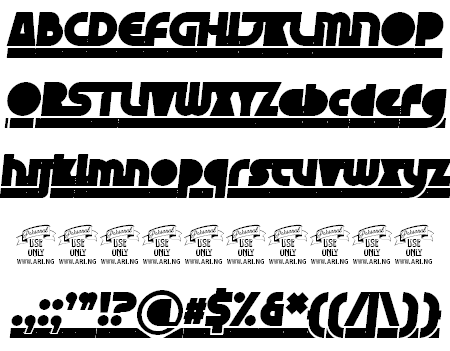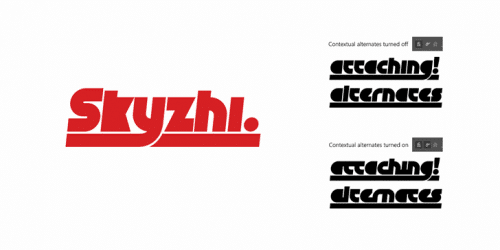
Skyzhi is a high quality Disney font that is designed by Måns Grebäck. It is an action-filled, futuristic sans typeface. Turn on contextual alternates to connect the letters. With underscore (_) you can make the underline extend beyond and between words.